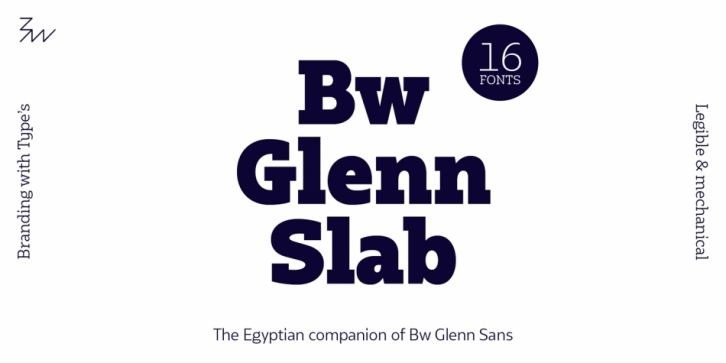
Publisher: Branding With Type
Designed by Alberto Romanos, Bw Glenn Slab is a slab serif and display slab font family. This typeface has sixteen styles and was published by Branding With Type.
Bw Glenn Slab is a confident and robust font family with a sturdy feel offering no concessions for ambiguity. Its strict geometry and open shapes provide a very legible and clean texture, performing well on print and screens alike.
It’s also the egyptian companion of Bw Glenn Sans. They’re the perfect complement for each other, sharing x-height and modulation as both font families were developed in parallel.
Designed by Alberto Romanos, Bw Glenn Slab comes available in 8 weights from Hairline to Black with matching italics, tabular and old style figures, case sensitive forms and many other OpenType features. Bw Glenn Slab supports Extended Latin, providing designers worldwide with a rich functional palette with that extra bit of personality.